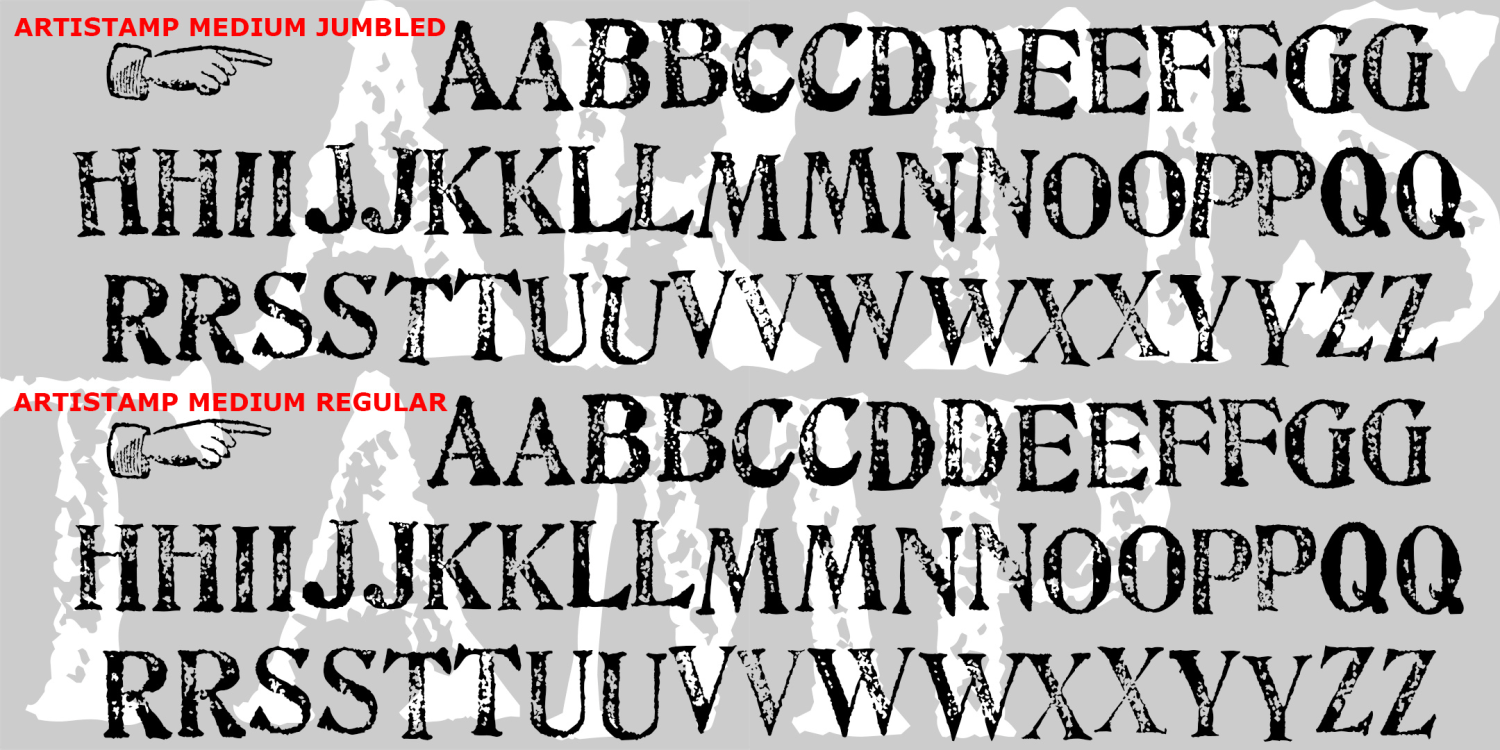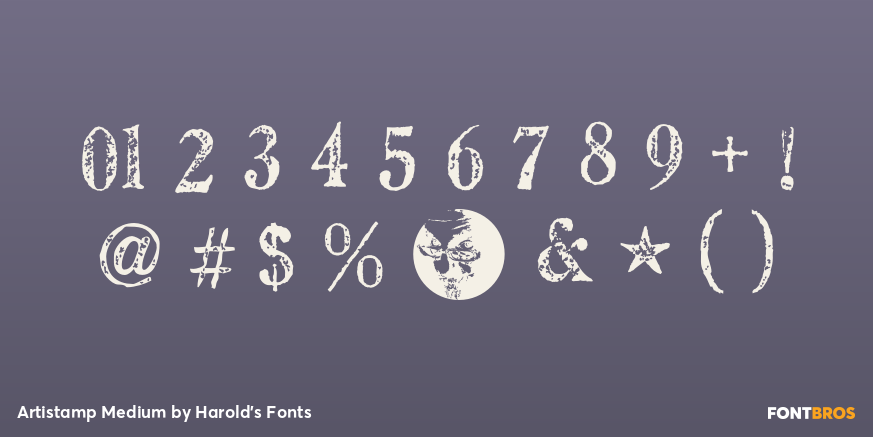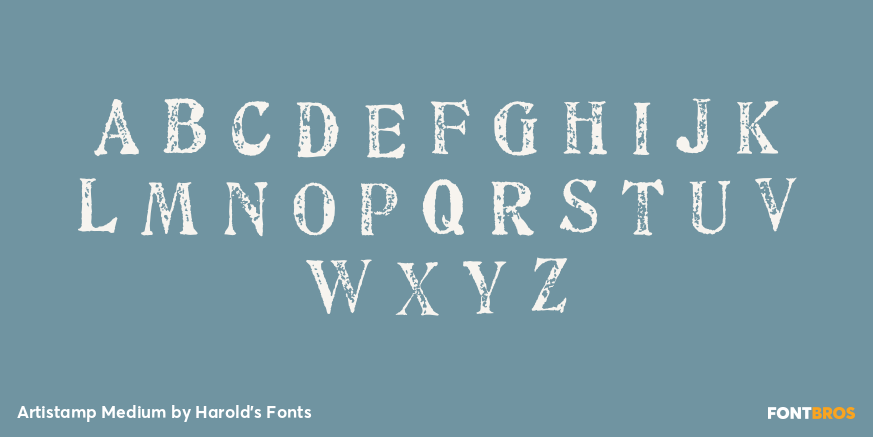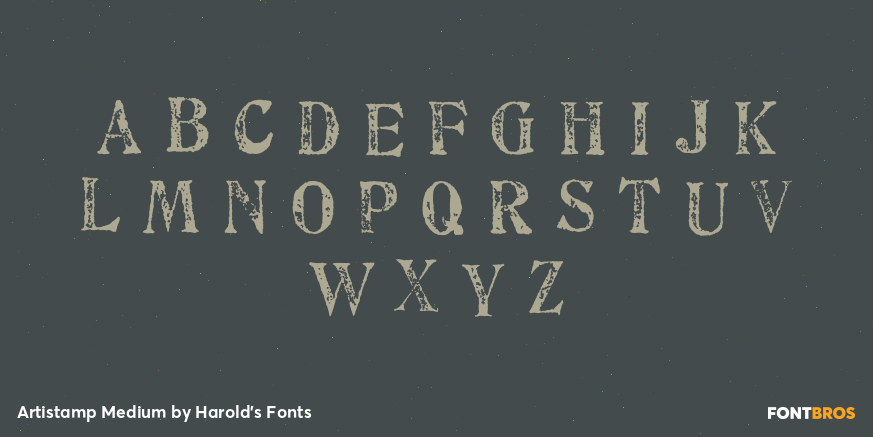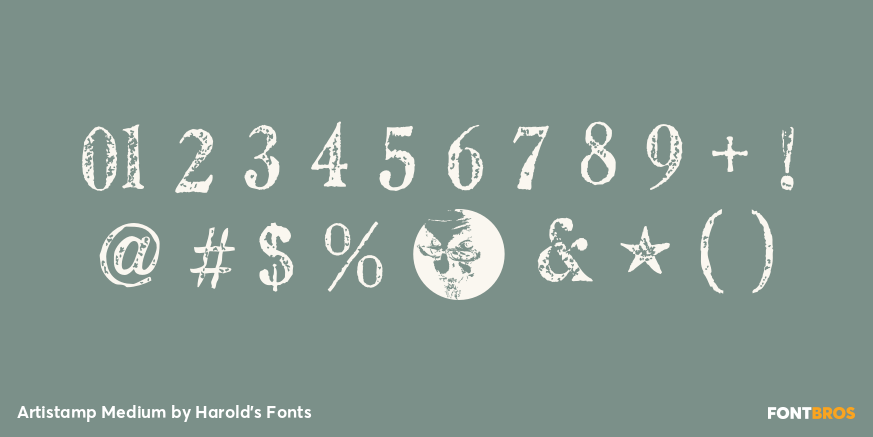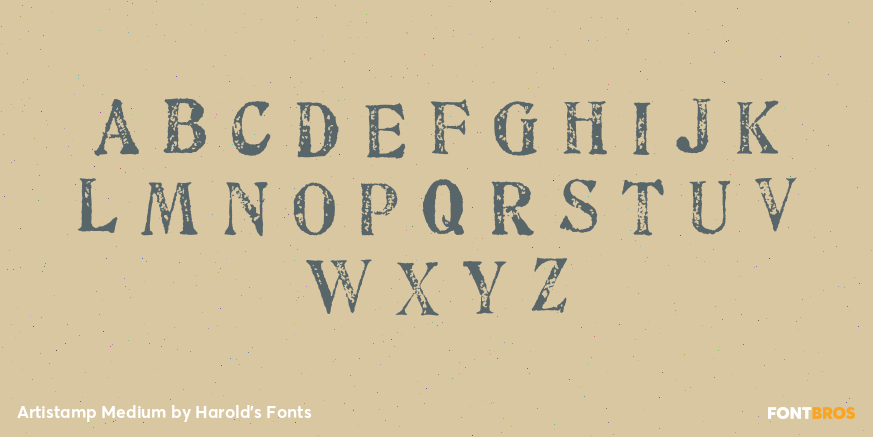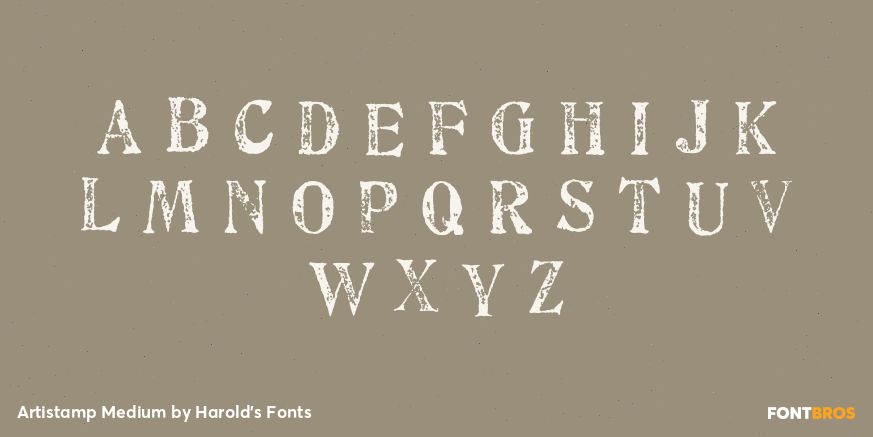
Artistamp Medium
Font Bundle by Harold's Fonts
The ARTISTAMP fonts began with scans of vintage rubber stamps I had long admired. There are two of each letter, in upper- and lowercase positions, to allow a more random feel. "Wet" means it looks like there was a lot of ink on the stamp pad, "medium" is less inky, and each comes aligned and jumbled.
Achieve a realistic rubber-stamp effect, with spell check and clean fingers!